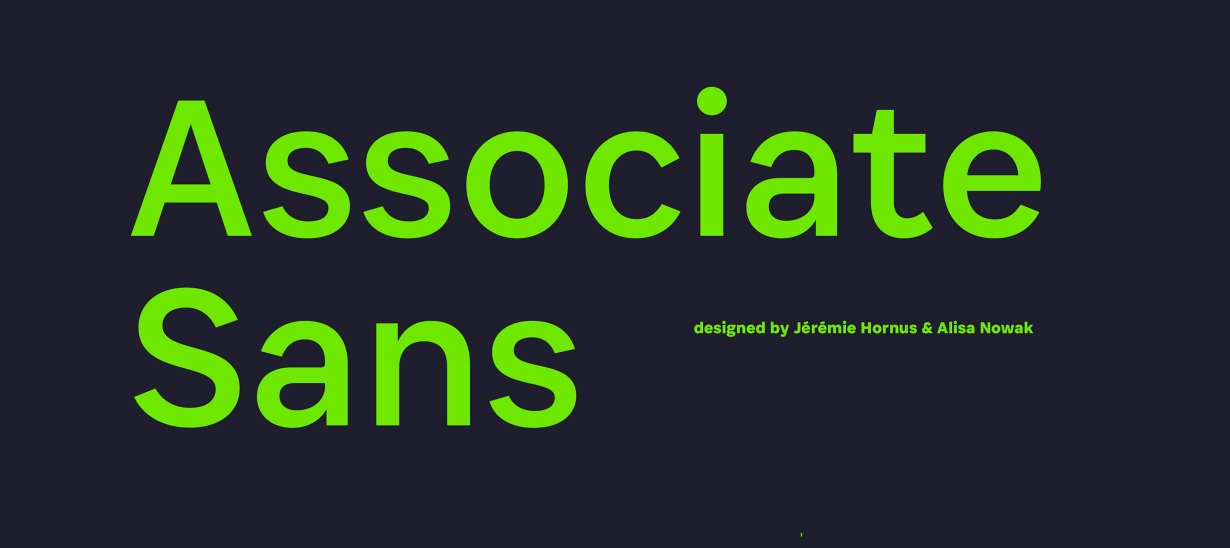
Associate Sans Font
Associate Sans Font is perfect for corporate identity systems, professional presentations, business documentation, law firm communications, consulting agency branding, financial services marketing, executive reports, institutional websites, professional newsletters, and formal business correspondence.
What makes Associate Sans Font exciting is its sophisticated balance of contemporary professionalism with timeless reliability that establishes immediate credibility and trust. The font features clean, precise letterforms with carefully refined proportions that communicate competence, expertise, and institutional authority. Its modern sans serif design eliminates visual distractions while maintaining excellent readability, making it ideal for organizations that need to project professionalism, stability, and forward-thinking leadership across all communication channels.
Associate Sans Font family includes comprehensive weights ranging from Thin to Black, typically featuring Light, Regular, Medium, Semi Bold, Bold, and Heavy variations with corresponding italic styles. The family often includes condensed and extended versions with professional character sets, ensuring maximum flexibility for corporate document design, professional presentations, and institutional branding applications requiring sophisticated typographic hierarchies.